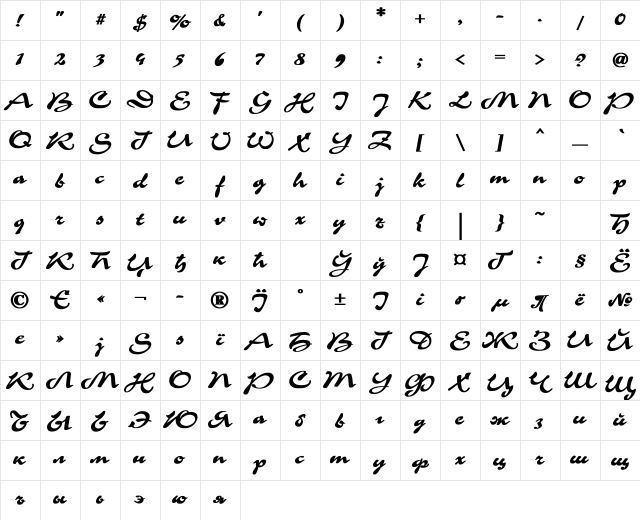
Corrida Bold Free Font
Corrida Bold
Complete Corrida Bold glyph index. Displaying only characters natively supported by Corrida Bold font.
Design Context for Corrida
Corrida is a composed and adaptable typeface that performs quietly and consistently across a wide range of design contexts. Its bold stroke weight gives it real presence on the page.